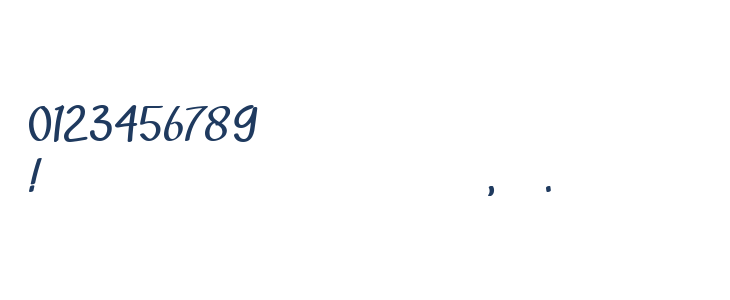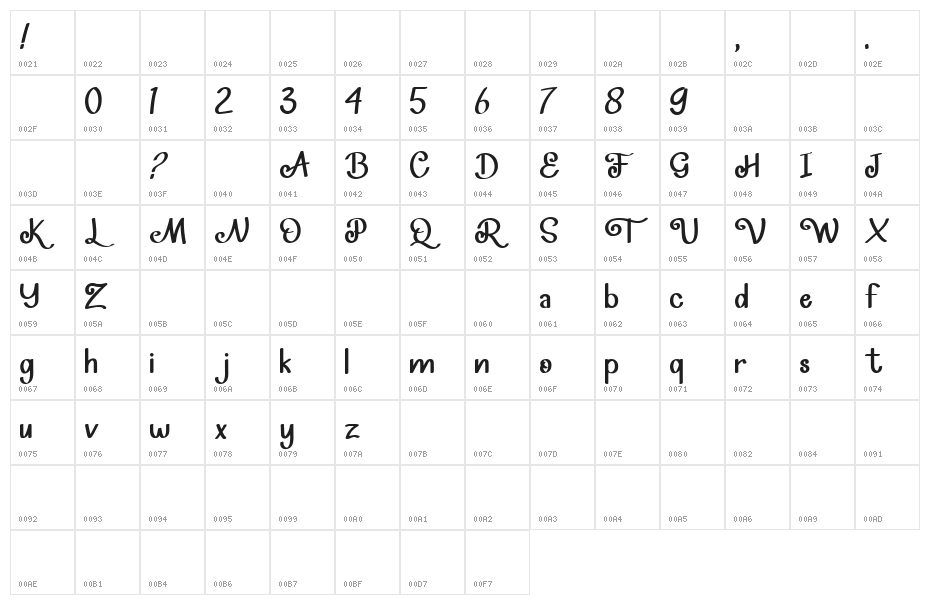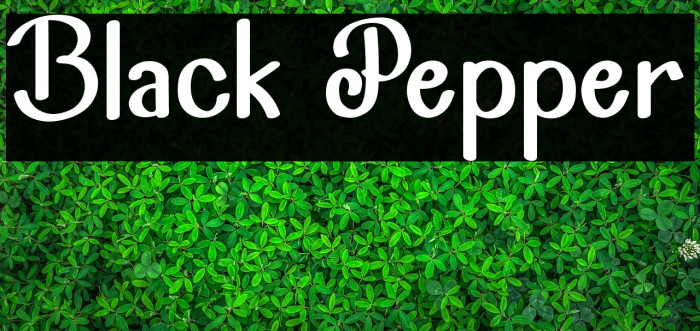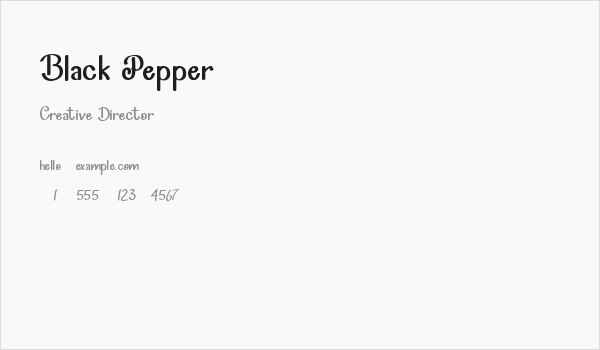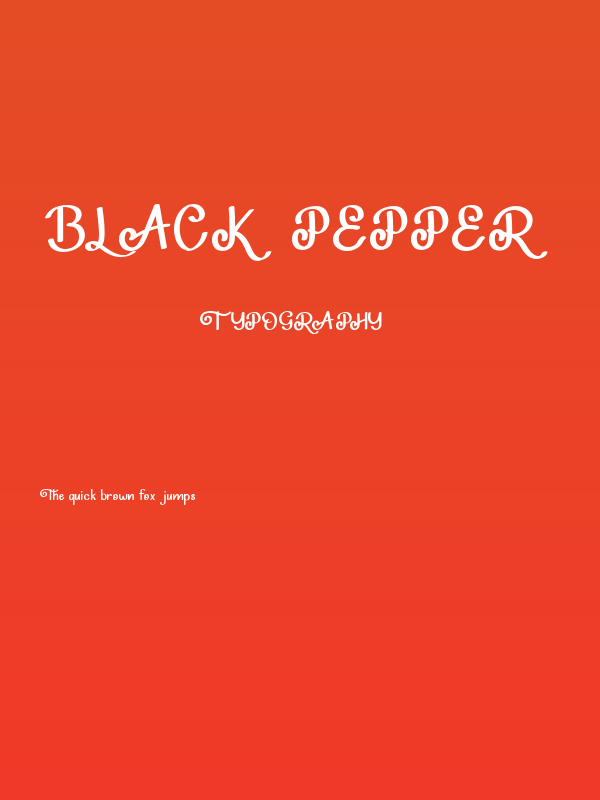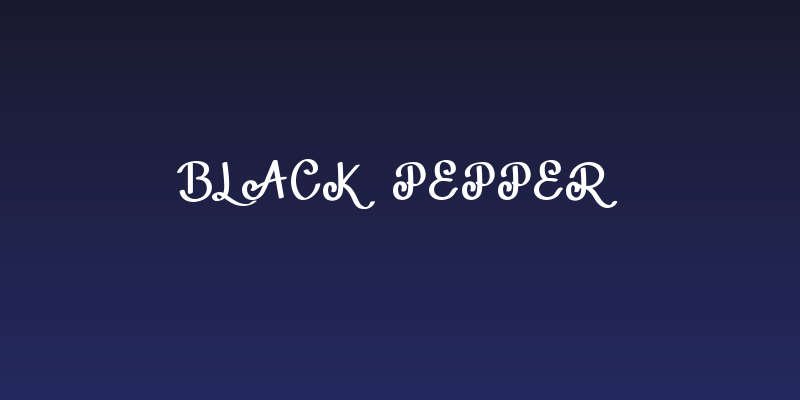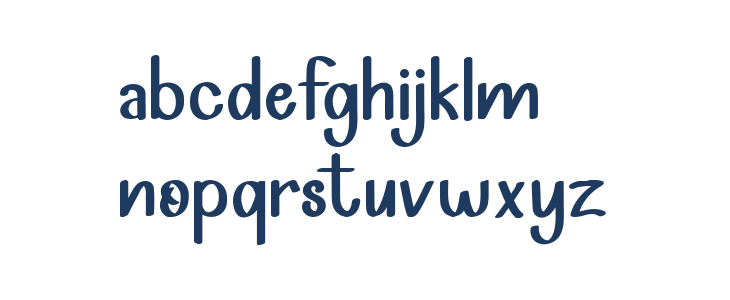
Black Pepper Font
Black Pepper Description
This font features a playful and whimsical design, characterized by its curly and decorative serifs. The uppercase letters exhibit a unique flair with loops and swirls, creating a sense of movement and creativity. The lowercase letters maintain a more straightforward yet still playful appearance, complementing the uppercase with their rounded forms. The numerals are bold and slightly rounded, ensuring readability while maintaining the font's overall playful aesthetic. Special characters like the exclamation mark and ampersand are designed with similar decorative elements, enhancing the font's cohesive style.
| Overall Style | Playful, Whimsical, Decorative |
| Use Case | Headlines, Logos, Creative Projects |
| Proposed Projects | Ideal for children's books, playful branding, greeting cards, and creative invitations. |